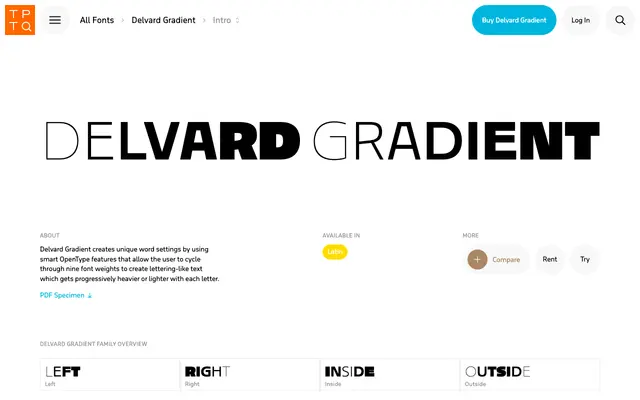
Delvard Gradient
A display serif from Typotheque offering four directional gradient shading variants for high-contrast titling work.
Four stylistic variants — Left, Right, Inside and Outside — each apply a different directional shading to the letterforms, giving designers control over how light appears to fall across the type. The family is built for display and titling use, with the gradient effects lending themselves to print and editorial contexts where dimensional letterforms are needed. Individual styles are sold separately under city-named cuts: Amsterdam, Bengaluru, Copenhagen and Damascus.
Delvard Gradient is a decorative display serif with directional gradient shading variants (Left, Right, Inside, Outside), placing it firmly in the display category with an ornamental, high-contrast character.